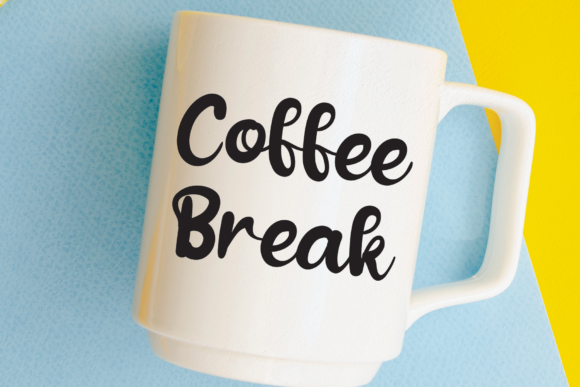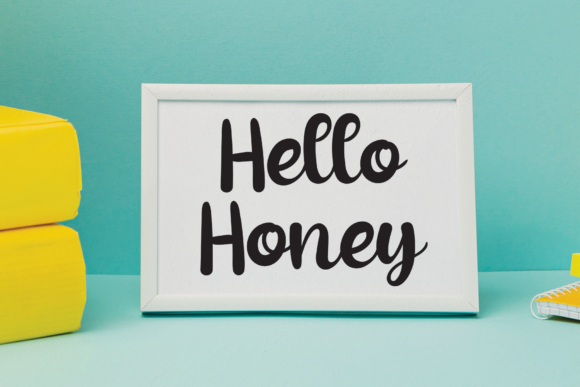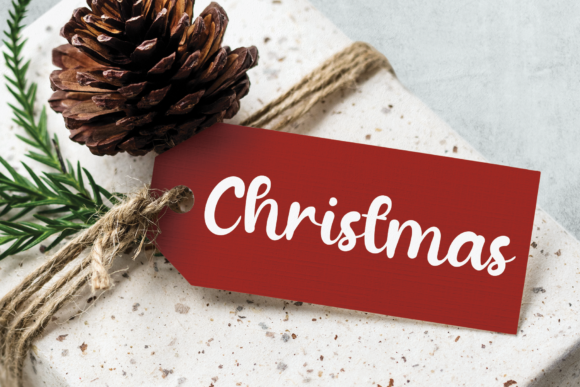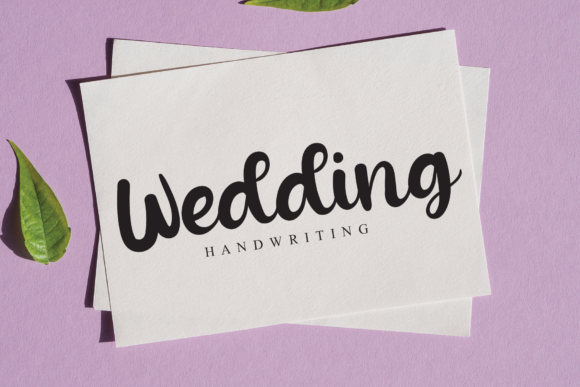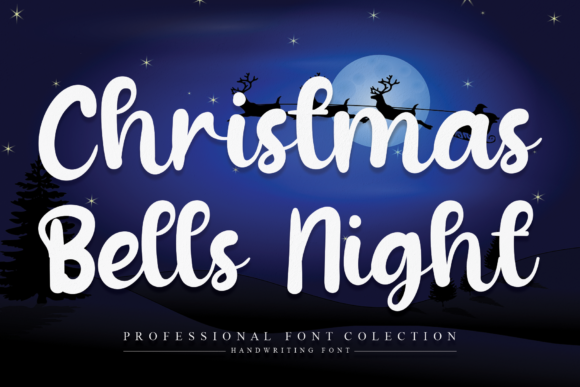
Introducing Christmas Bells Night Font: A Sweet and Round Lettered Handwritten Font
Are you looking for a font that captures the essence of the holiday season? Look no further than Christmas Bells Night Font, a sweet and round lettered handwritten font that’s perfect for a variety of design projects. In this article, we’ll take a closer look at this beautiful font and explore its many uses, from logos and wedding invitations to t-shirts and signage.
What is Christmas Bells Night Font?
Christmas Bells Night Font is a unique and charming handwritten font that’s designed to evoke the magic of the holiday season. Its sweet and round letterforms are perfect for creating a warm and inviting atmosphere in your designs. Whether you’re a designer, crafter, or DIY enthusiast, this font is sure to become a favorite in your collection.
Key Features of Christmas Bells Night Font
So, what makes Christmas Bells Night Font so special? Here are just a few of its key features:
- Sweet and Round Letterforms: The font’s sweet and round letterforms are perfect for creating a warm and inviting atmosphere in your designs.
- Handwritten Style: The font’s handwritten style gives it a personal and unique touch that’s perfect for a variety of design projects.
- Versatile: Christmas Bells Night Font can be used for a wide range of design projects, from logos and wedding invitations to t-shirts and signage.
Uses for Christmas Bells Night Font
So, what can you use Christmas Bells Night Font for? The possibilities are endless! Here are just a few ideas to get you started:
- Logos: Create a unique and memorable logo for your business or brand with Christmas Bells Night Font.
- Wedding Invitations: Add a touch of elegance and sophistication to your wedding invitations with this beautiful font.
- Headings: Use Christmas Bells Night Font to create eye-catching headings for your website, blog, or social media channels.
- T-Shirts: Create custom t-shirts with Christmas Bells Night Font for a unique and stylish look.
- Letterhead: Add a personal touch to your letterhead with this charming font.
- Signage: Use Christmas Bells Night Font to create eye-catching signage for your business or event.
- Labels: Create custom labels for your products or gifts with this versatile font.
- News: Use Christmas Bells Night Font to create engaging and informative newsletters or news articles.
- Posters: Create eye-catching posters for your business or event with this beautiful font.
- Badges: Use Christmas Bells Night Font to create custom badges for your business or event.
Why Choose Christmas Bells Night Font?
So, why should you choose Christmas Bells Night Font for your design projects? Here are just a few reasons:
- Unique and Eye-Catching: Christmas Bells Night Font is a unique and eye-catching font that’s sure to grab attention.
- Easy to Read: The font’s clear and readable letterforms make it perfect for a variety of design projects.
- Versatile: Christmas Bells Night Font can be used for a wide range of design projects, from logos and wedding invitations to t-shirts and signage.
In conclusion, Christmas Bells Night Font is a sweet and round lettered handwritten font that’s perfect for a variety of design projects. Its unique and eye-catching letterforms, easy readability, and versatility make it a great choice for designers, crafters, and DIY enthusiasts. Whether you’re looking to create a logo, wedding invitation, or t-shirt, Christmas Bells Night Font is sure to become a favorite in your collection.